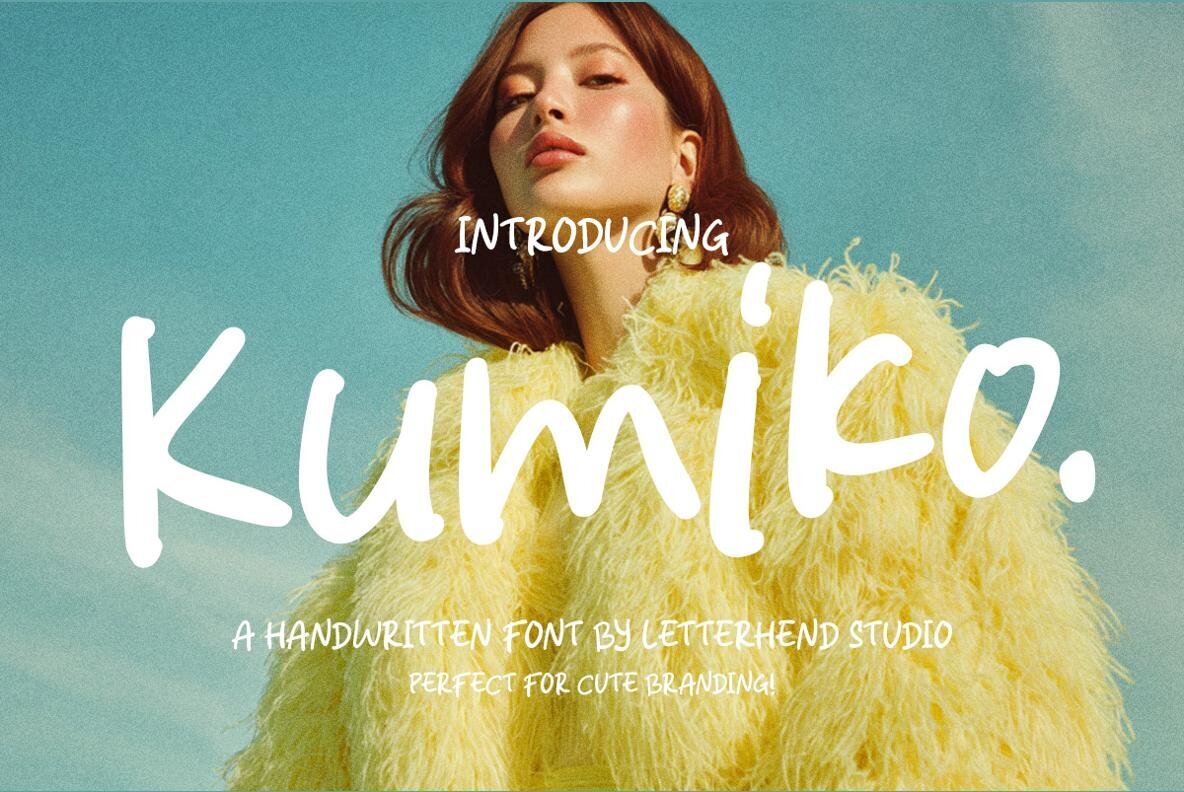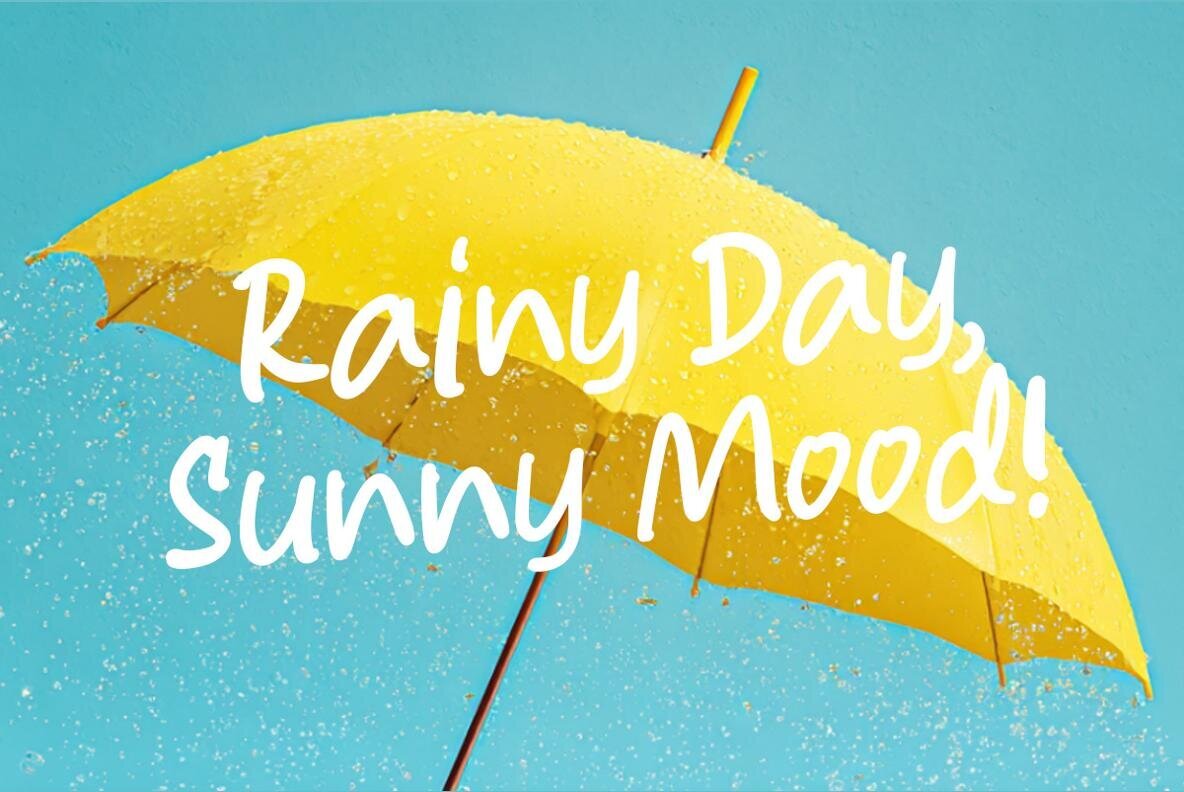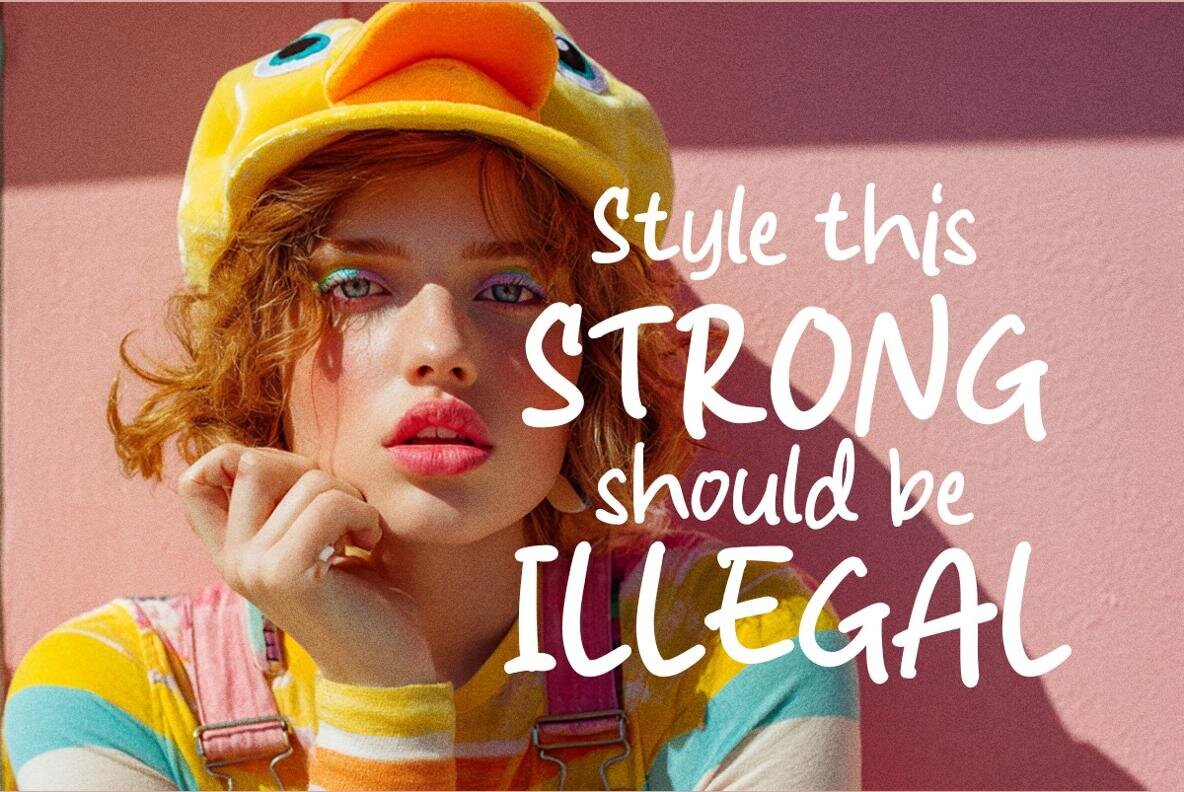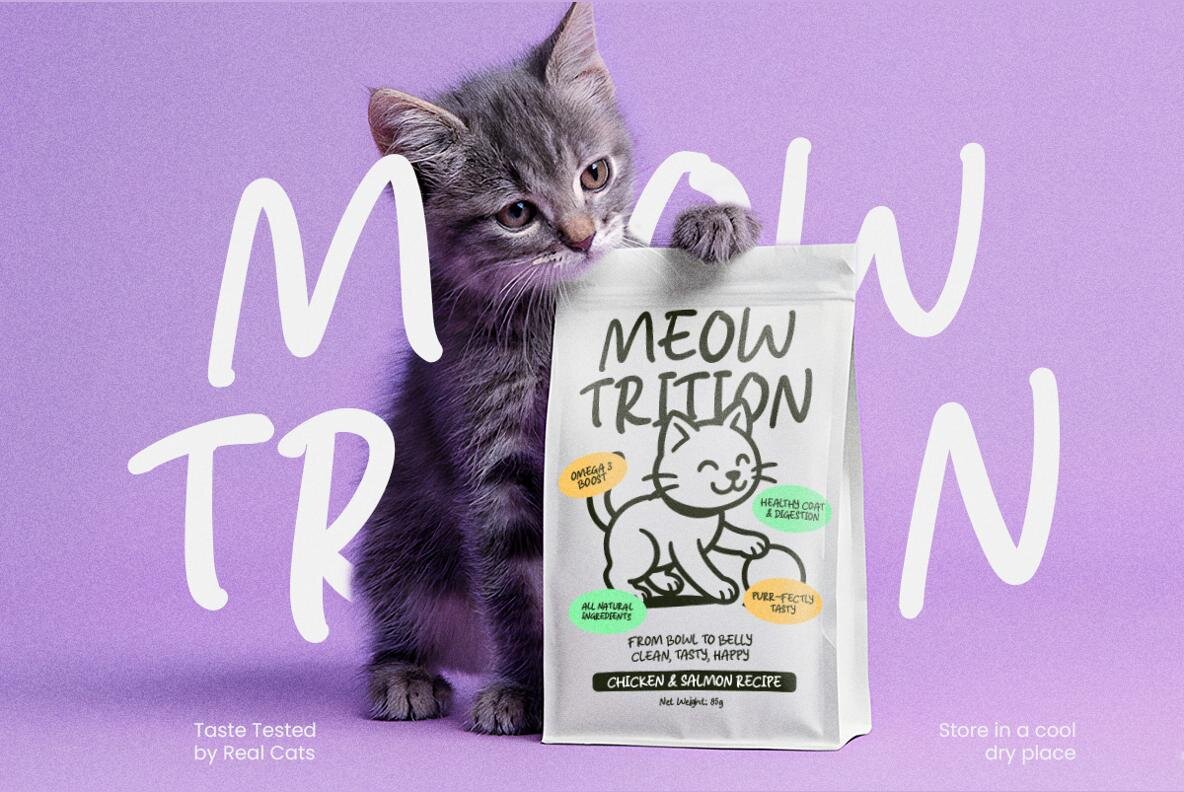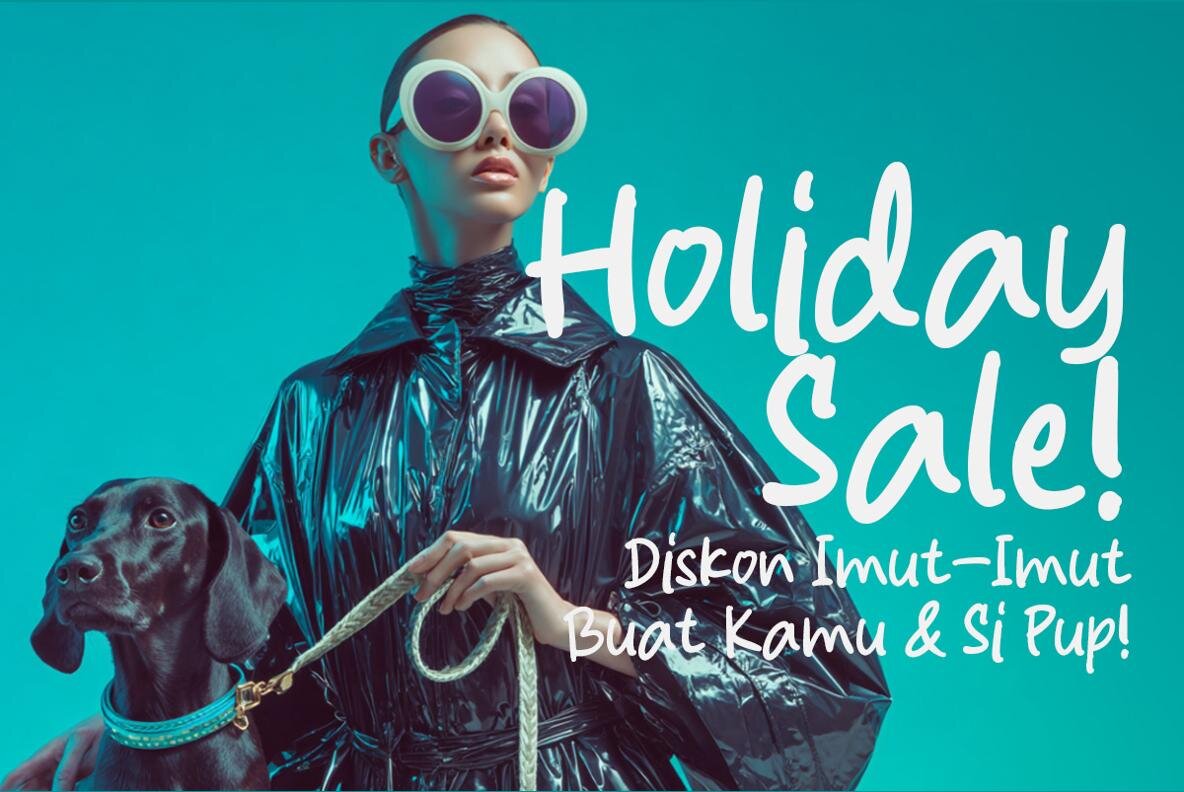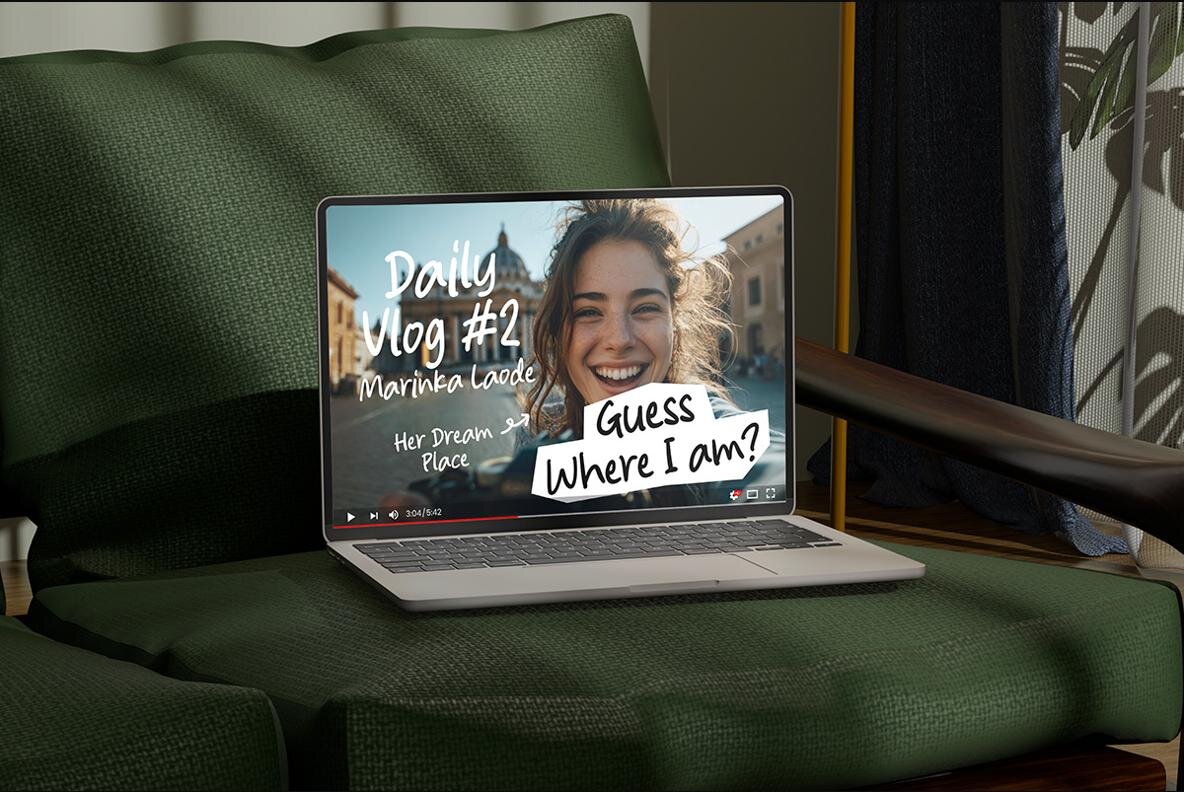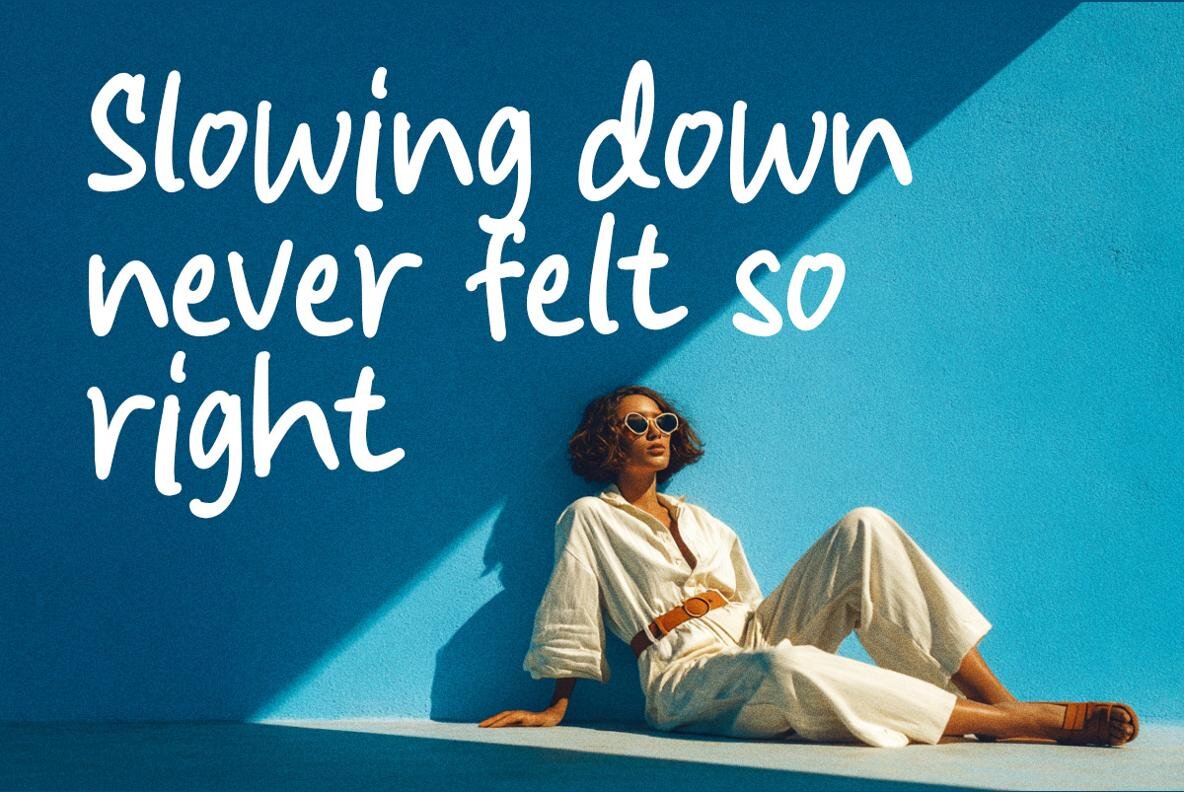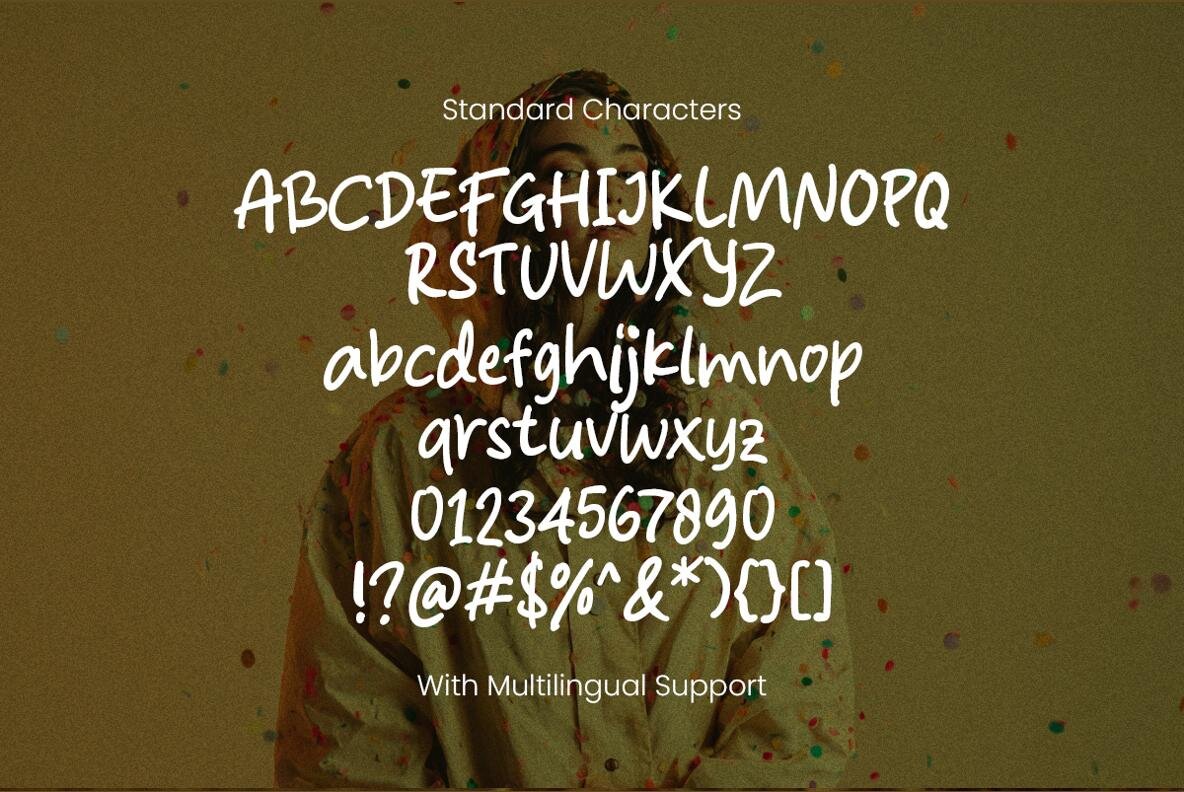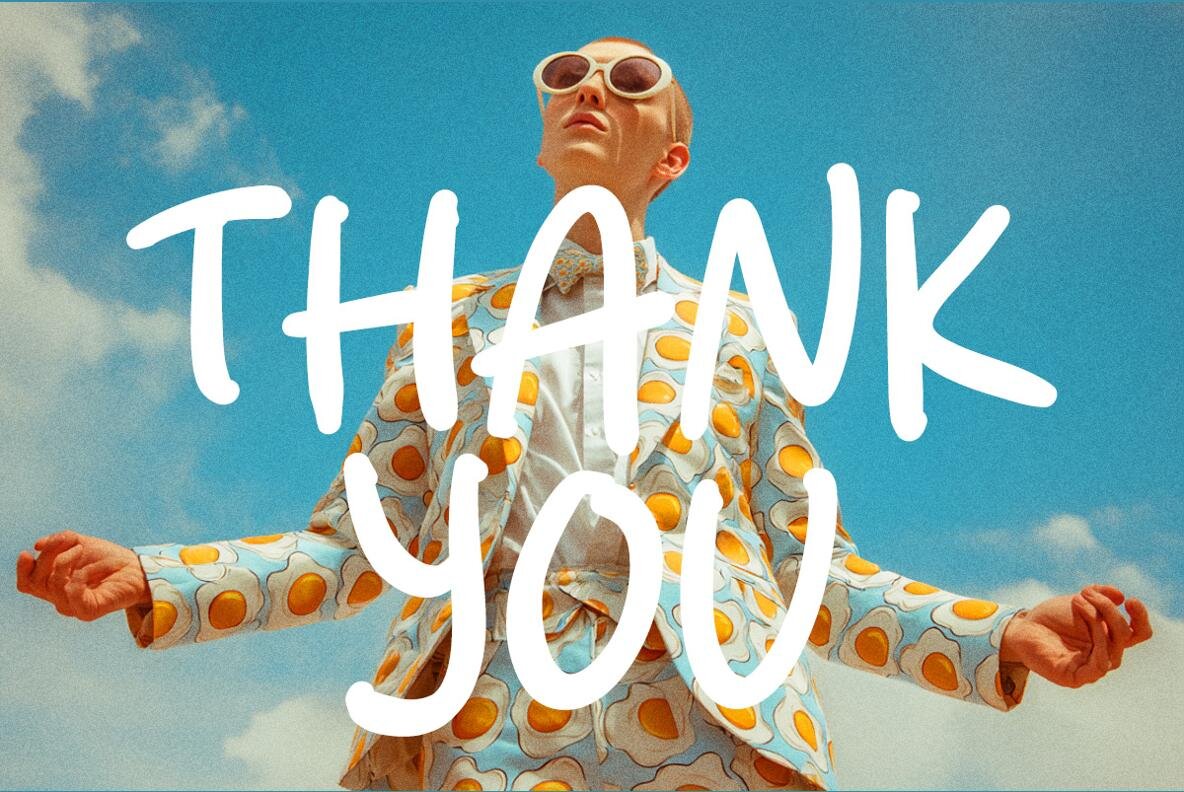
Kumiko Font
Kumiko Regular
With a lively and personal touch, Kumiko is a handwritten font that exudes a relaxed and welcoming aura. Defined by its smooth strokes and rounded edges, it brings an approachable flair ideal for branding, packaging, social media graphics, and posters. This font breathes contemporary handwritten charm into any project, ensuring your designs are imbued with warmth and appeal. Features: Preview Kumiko with our "Type Tester" on the website, showcasing all glyphs and special characters to see how it complements your project. Explore your design possibilities with confidence.Kumiko: A Playful Handwritten Font for Cheerful Designs